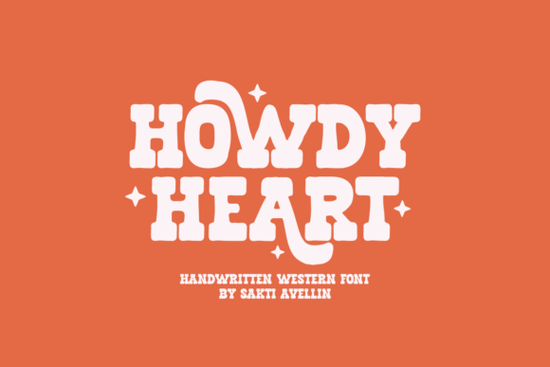
If you are looking for a typeface that blends rustic charm with playful energy, the Howdy Heart Font is a fantastic choice for your next project. This western-style display font features chunky contours and whimsical curves that instantly add warmth to your layouts. Whether you are designing merchandise for a print-on-demand shop or creating custom invitations, this handwritten lettering brings a bold, retro vibe that catches the eye. It is specifically built to give your creative projects a distinct, approachable personality without feeling overly complicated.
What makes this typeface ideal for merchandise and branding?
When creating physical products like t-shirts, mugs, or tote bags, you need lettering that stands out on a crowded shelf. The dynamic alternates in this font allow you to customize the look of your text, ensuring your branding feels unique and handcrafted. If you are building a cohesive shop aesthetic, you might pair it with a clean, simple sans-serif for your product descriptions. For other thematic projects, you could explore options like this vintage display style to keep that nostalgic, retro feel, or switch to a bold hand-painted look when you need something much grittier for edgy streetwear apparel.
How do the alternate characters improve custom layouts?
One of the most practical features of this typeface is its dynamic alternate characters. This means you can easily swap out standard letters for stylistic variations to avoid repetitive shapes in longer words. It is especially useful when designing logos or short quotes where visual balance and flow are critical. You can create a custom monogram or a stylized header without needing to manually draw extra vector elements. If you are working on a spooky or magical theme instead of a western one, you might find this witchy display option to be a great alternative with similar playful, chunky curves.
What are the best practices for pairing this font?
Because this lettering has such a strong, chunky personality, it works best as a headline or display typeface. Pairing it with a simpler, quieter font prevents your overall design from looking cluttered or overwhelming.
- Use it for main titles and keep your body copy in a highly readable, neutral sans-serif.
- When designing product packaging, let the main title breathe by adding plenty of negative space around the text.
- For a cohesive retro look across a whole collection, consider mixing it with complementary styles, such as this block outline style for secondary text, badges, or background patterns.
Testing a few different pairings on screen before you commit to a final design will save you a lot of time during the revision process.
Where can I apply this western-style lettering?
This typeface is highly versatile across both digital and physical mediums, making it a reliable tool for small business owners and hobbyists alike. Here are a few specific ways to use it effectively:
- Apparel and Accessories: Print bold, retro slogans on denim jackets, canvas tote bags, or custom hats.
- Event Stationery: Add a warm, inviting touch to rustic wedding invitations, baby shower signs, or birthday party banners.
- Digital Graphics: Create eye-catching social media quotes or YouTube thumbnails that need a personal, handwritten feel.
- Packaging Design: Label artisanal goods like coffee bags, candle jars, or homemade soaps with a charming, authentic look.
Before you finalize your next design and send it to the printer, run through this quick checklist to ensure your typography choices are working effectively:
- Check readability: Ensure your chunky lettering is fully legible at the exact size you are printing it, especially for smaller items like stickers.
- Test the alternates: Turn on the OpenType features in your design software to see all available character swaps and pick the best flow.
- Verify contrast: Make sure the font color stands out clearly against your background or the physical color of your product.
Taking a few extra minutes to verify these details will help your final products look professional and polished.